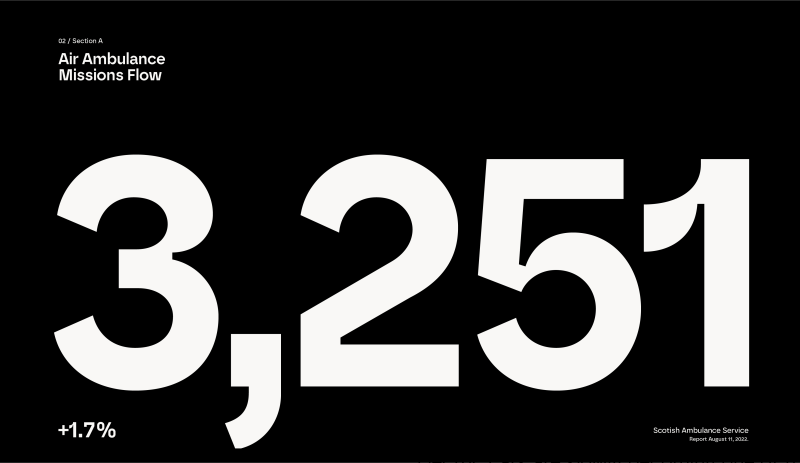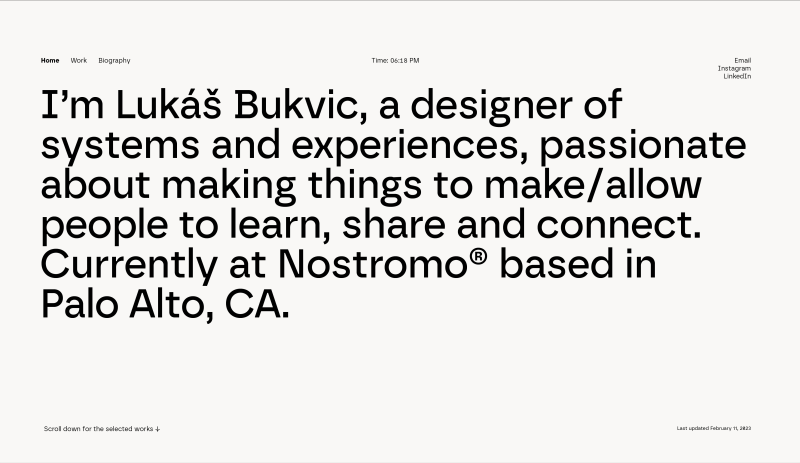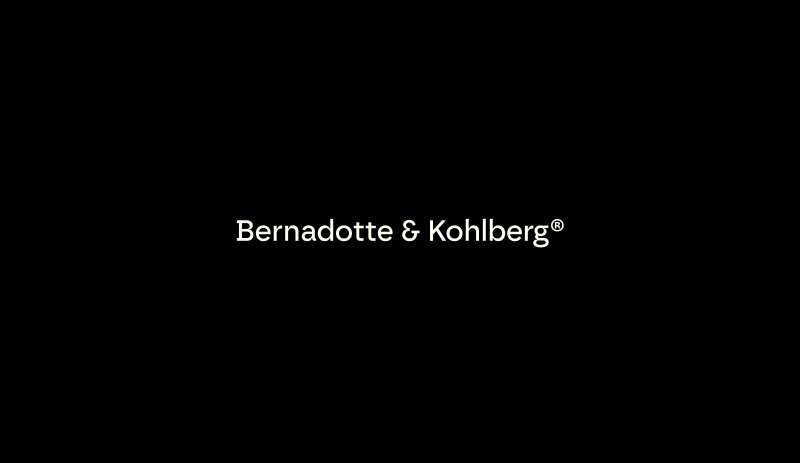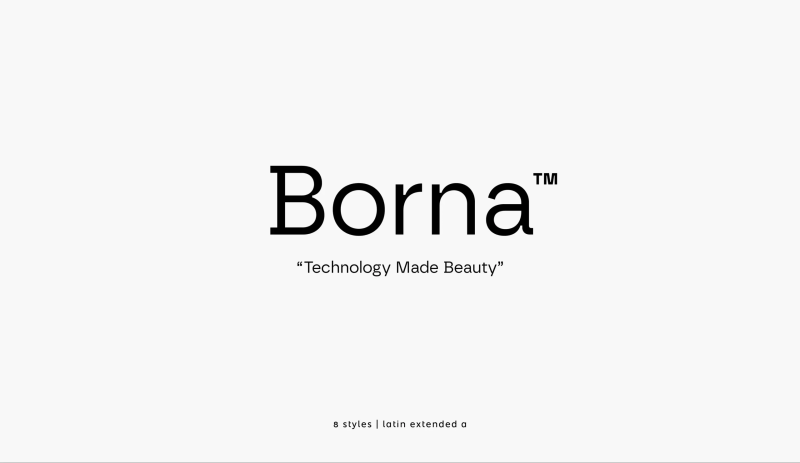
Borna Font Family
Borna is a powerful, functional and carefully crafted typeface that combines the virtues of typographic styles such as geometric fonts and the most representative of the…
Borna is a powerful, functional and carefully crafted typeface that combines the virtues of typographic styles such as geometric fonts and the most representative of the Swiss style such as Helvetica or Univers. It has apparent and deep ink traps in all weights, which gives it personality and a certain technological air. Borna picks up the typographical tradition but updating its appearance and focusing on the near future. Borna comes in eight weights with matching italics and was intended to be versatile working for both print and digital design, logos, branding, editorial, packaging, publishing, and web design.